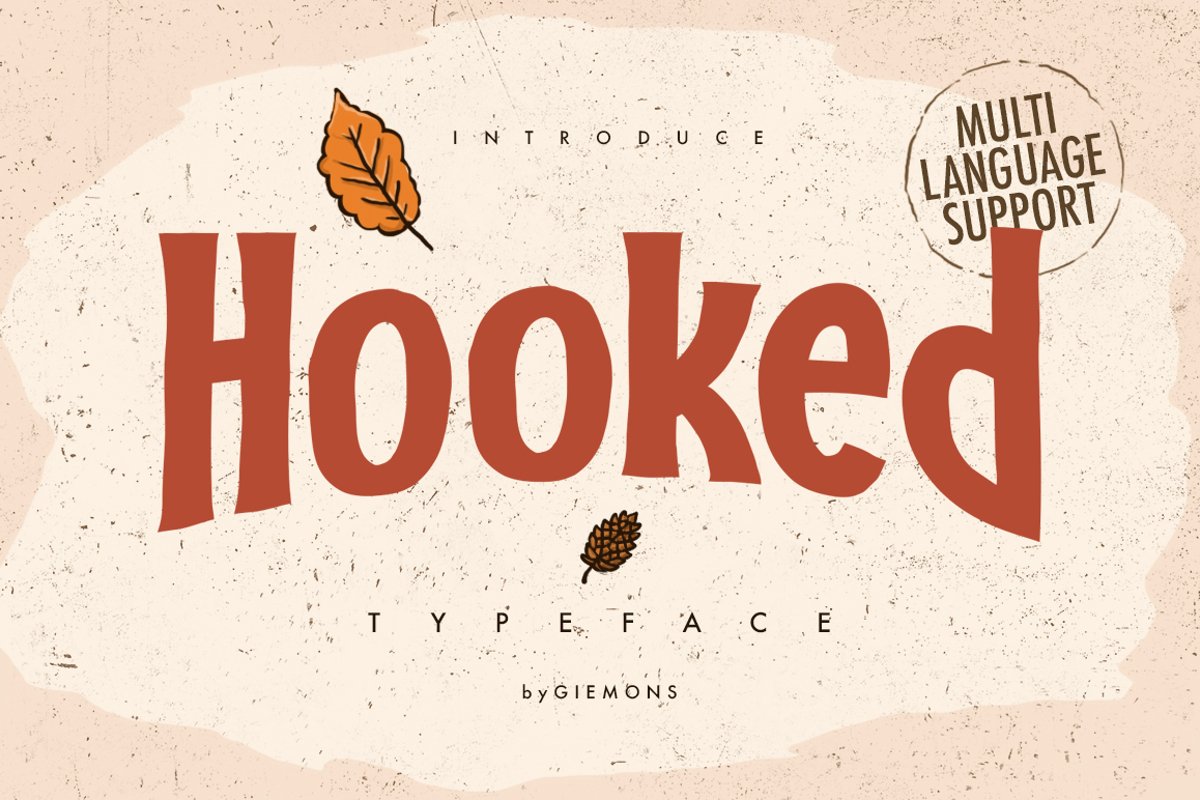
Hooked Typeface
a HOOKED Typeface is Display Font. Can make it easier to convey the message in your design. Use for awesome display, Logo, labeling, clothing, movie sceen, poster, movie title, gigs, album covers, logos, and much more.Include :
• Numerals & Punctuations
• Multilanguage Support